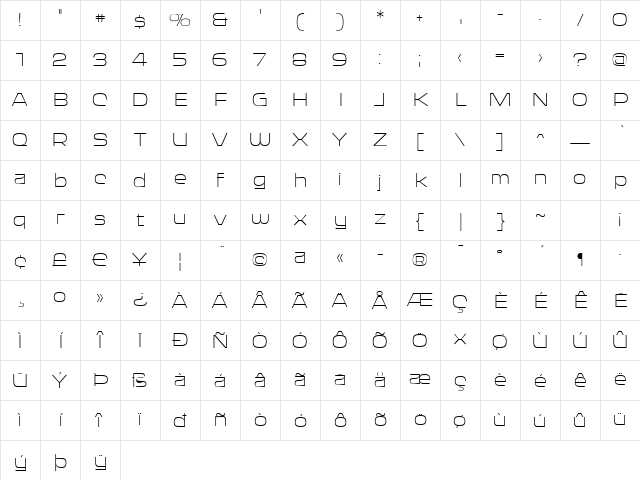
Ritafurey Extra Light Regular Free Font
Ritafurey Extra Light Regular
Design Context for Ritafurey Extra Light
Ritafurey Extra Light is a composed and adaptable typeface that performs quietly and consistently across a wide range of design contexts. Its slender proportions lend an understated elegance to any composition.